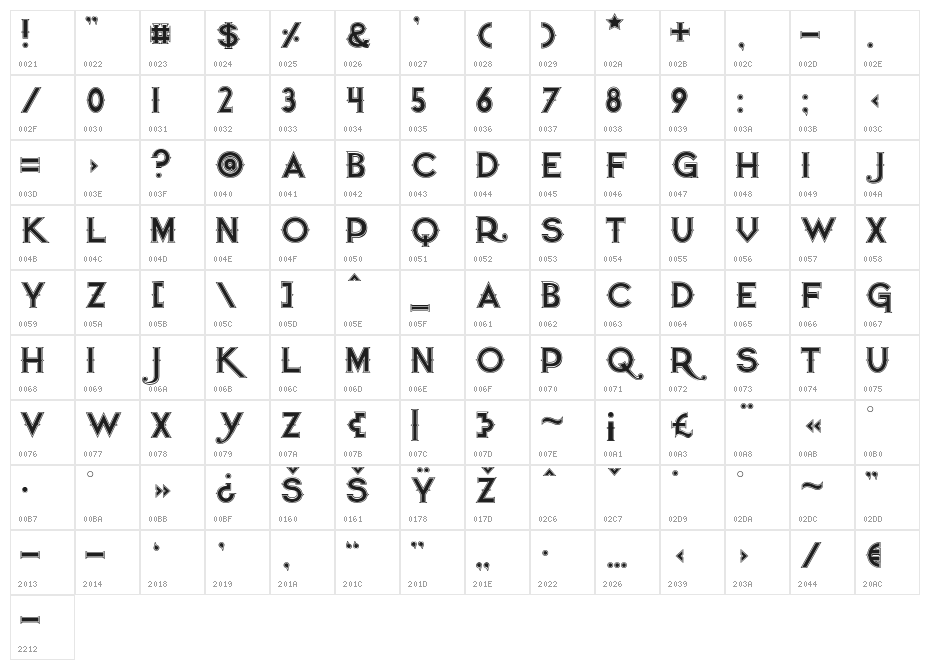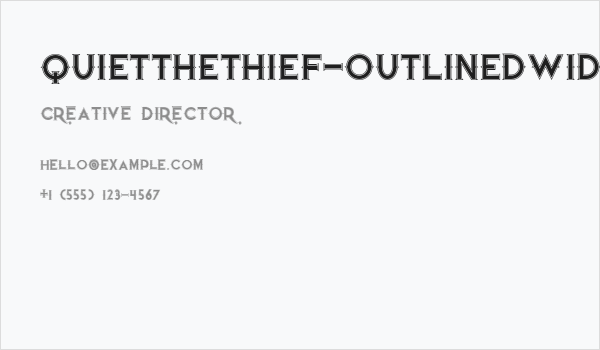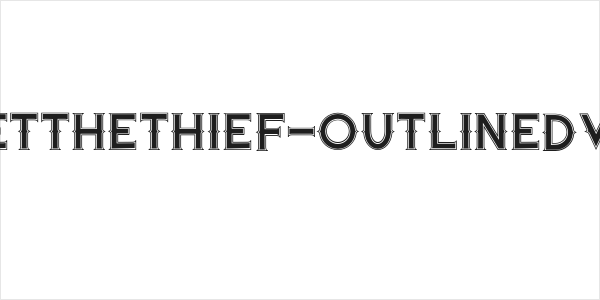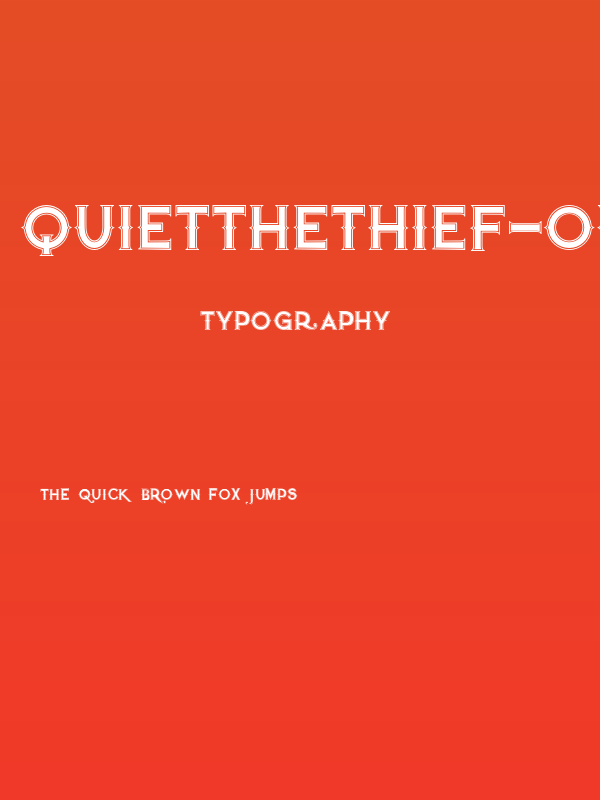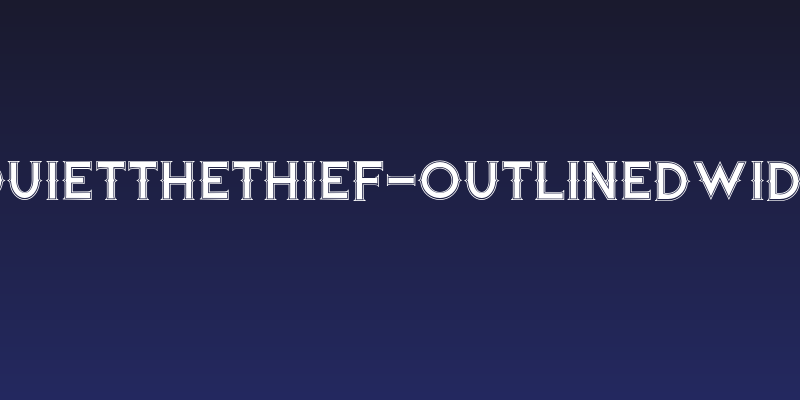
QuiettheThief-OutlinedWide Font
QuiettheThief-OutlinedWide Description
This font features a bold and striking outline style, with each character having a distinct, wide outline that gives it a strong presence. The uppercase letters are designed with sharp, angular serifs, adding a touch of elegance and sophistication. The lowercase letters maintain the same bold outline, ensuring consistency throughout the typeface. Numbers and special characters are equally bold, making them stand out and easy to read. The overall design is both modern and classic, suitable for a variety of uses where a strong visual impact is desired.
| Proposed Projects | Ideal for headlines, posters, branding, and any design requiring a strong, impactful font. |